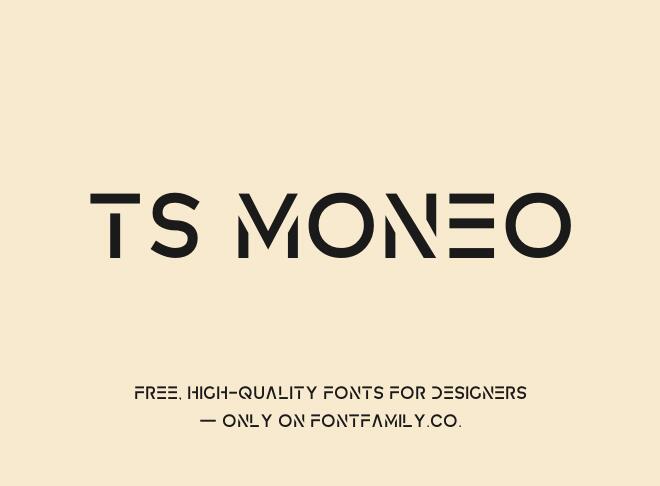
Ts Moneo Font
Ts Moneo Font is a modern, geometric typeface with a clean and crisp design. Known for its well-balanced forms, this font offers a contemporary feel that makes it a great choice for branding, web design, and print projects. It's a Sans Serif font, which means it doesn't have the small projecting features called 'serifs' at the end of strokes. This makes Ts Moneo highly readable, even at smaller sizes. Its display category ensures it stands out in larger formats, making it ideal for headers and titles. Compared to other fonts, Ts Moneo Font offers a unique blend of simplicity and sophistication. Its versatility makes it a go-to font for designers seeking a modern and stylish look in their designs.